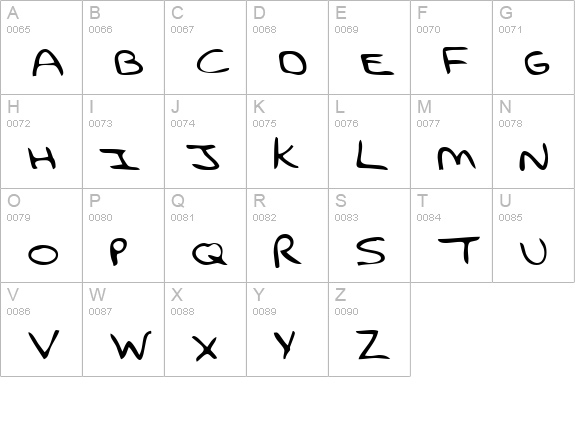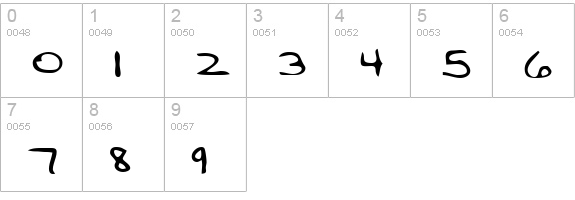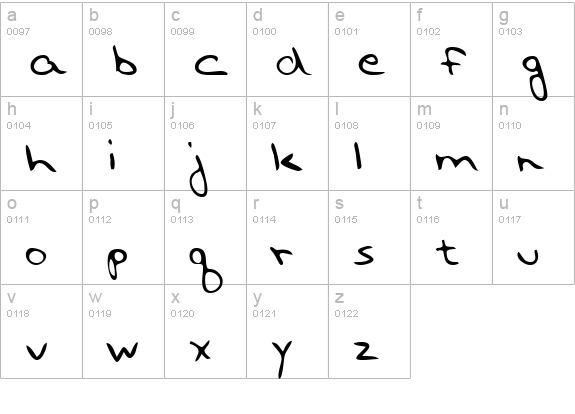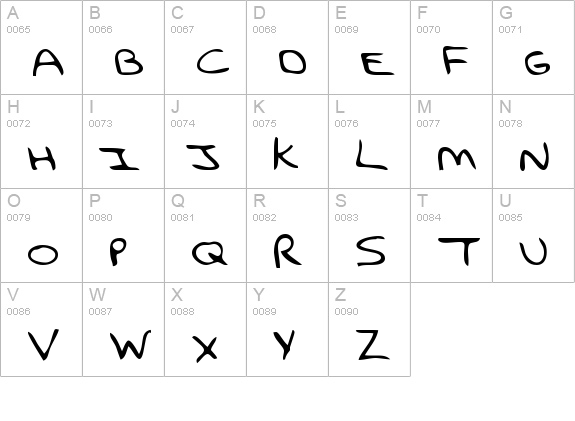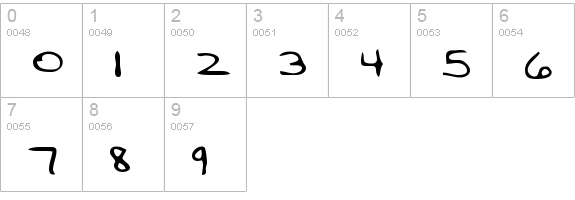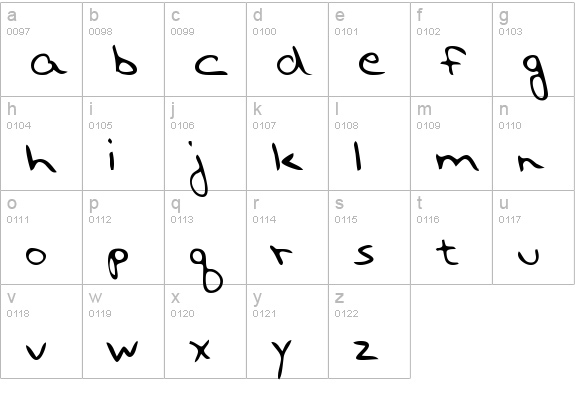
MargosHand Regular Font Details
MargosHand Regular is the standard, neutral variant in the MargosHand typeface family \xE2\x80\x94 well suited to general body text, paragraphs, and standard typographic work.
MargosHand Regular font is a delightful and charming typeface that will add a touch of whimsy and playfulness to any design project. With its handwritten style, this font captures the warmth and authenticity of hand-drawn lettering, making it perfect for personal and creative projects. The flowing and organic nature of MargosHand Regular font lends itself well to a variety of applications, including greeting cards, invitations, logos, branding, packaging, and more. Its unique and expressive characters bring a sense of personality and character to any design, making it stand out from the crowd. One of the best aspects of MargosHand Regular font is that it is freely available to download at FontsMarket.com. This means that you can easily access and use this fantastic font without any cost. Whether you're a professional designer or a hobbyist, this font offers high-quality and professional results without breaking the bank. MargosHand Regular font is carefully crafted, ensuring smooth and legible letterforms that are easy to read in both small and large sizes. Its versatility allows it to be used in various design contexts, from elegant wedding invitations to playful children's book illustrations. So, if you're looking for a font that exudes charm and creativity, MargosHand Regular is the perfect choice. Download it for free at FontsMarket.com and let your imagination run wild with its endless design possibilities.